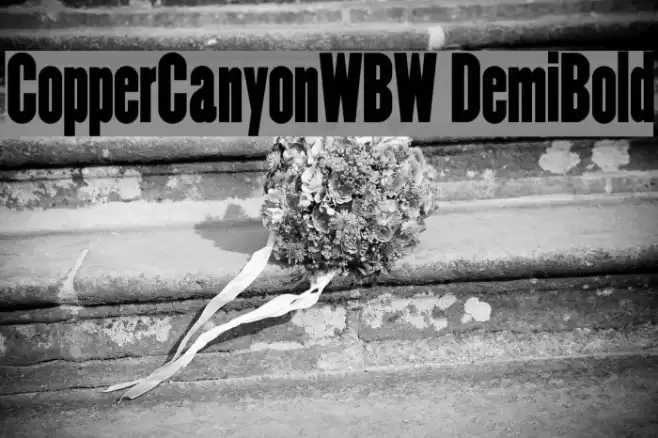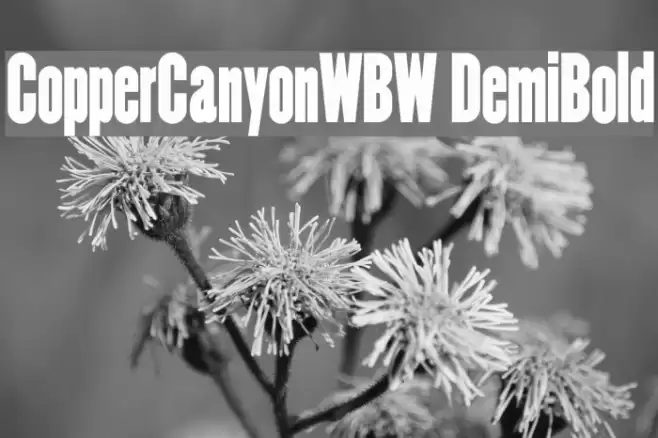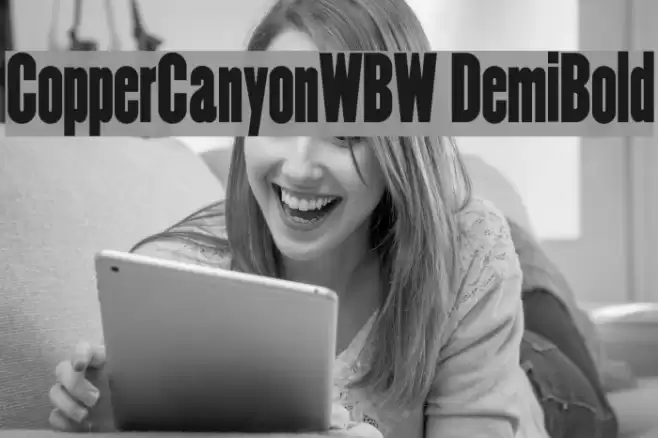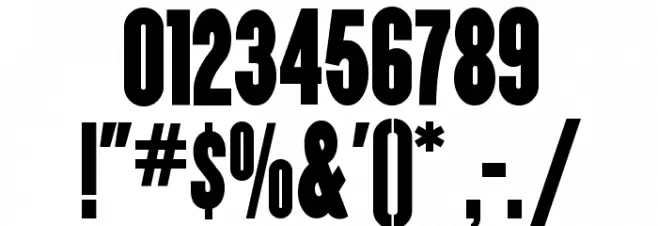
CopperCanyonWBW DemiBold Font
CopperCanyonWBW DemiBold Description
This font features a bold and impactful design with thick, uniform strokes that convey strength and presence. The uppercase and lowercase letters maintain a consistent height, providing a cohesive look. The numbers and special characters are equally bold, ensuring readability and emphasis. The overall style is modern and assertive, making it suitable for attention-grabbing headlines and titles. The font's strong geometric shapes and solid structure make it ideal for projects that require a commanding visual presence.
A bold, modern font with thick, uniform strokes for impactful design from Decorative fonts.
- Proposed Projects: Ideal for posters, headlines, branding materials, and advertisements where a strong, bold statement is needed.